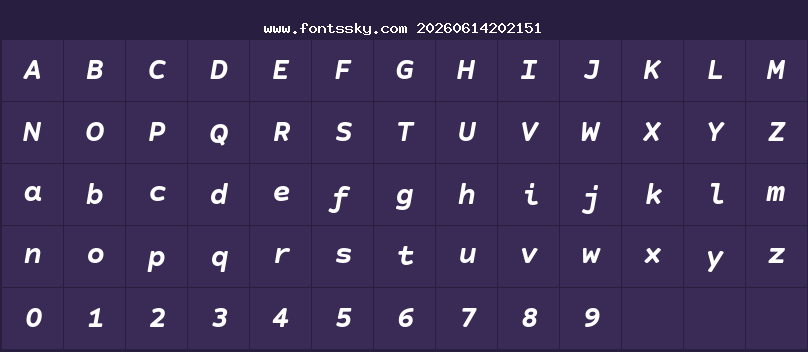
Courier Prime Sans Preview
• Font Name: Courier Prime Sans
• Designer: Alan Dague-Greene
• Manufacturer: Quote-Unquote Apps
About Courier Prime Sans.ttf
Courier Prime Sans.ttf is a modern, elegant sans-serif font designed for ultimate readability and visual harmony. Perfect for branding, headlines, web design, and print materials.